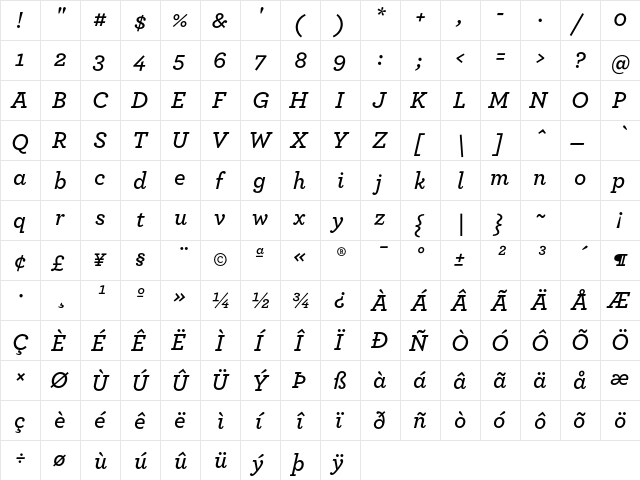
Archer Semibold Italic Font Preview
| Foundry | Hoefler & Frere-Jones |
| Designer | Hoefler & Frere-Jones |
Design Context for Archer Typeface
Archer takes a measured approach to typography — its balanced proportions and neutral character make it a reliable workhorse for both digital and print work. Its italic angle brings a sense of urgency and motion to the letterforms. Its bold stroke weight gives it real presence on the page.
Pro Tip: Try Archer for annotation and caption copy alongside an upright companion — the contrast in angle creates a dynamic but ordered typographic system.